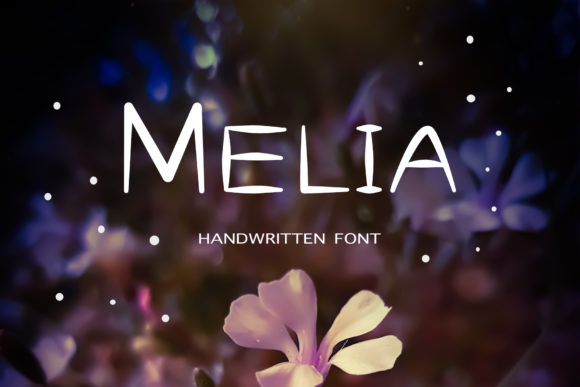
Introducing Melia Font, the epitome of elegance and sophistication in the world of script fonts. This exquisite font, brought to life by the creative minds at 18CC FONTs, is more than just a collection of letters; it's an artistic expression that captures the essence of handwritten beauty. Melia Font isn't just a font; it's an experience.
With its flowing curves, delicate strokes, and a touch of whimsy, Melia Font adds a captivating charm to any project it graces. Whether you're crafting invitations for a special occasion, designing posters for an event, or creating logos for your brand, Melia Font elevates your designs to new heights of sophistication.
With its versatility, Melia Font seamlessly adapts to a wide range of projects, from formal documents to playful invitations. It effortlessly complements both classic and contemporary styles, adding a touch of elegance to traditional projects and a dash of whimsy to modern designs.
Melia Font possesses an innate ability to capture the essence of handwritten messages, making it the perfect choice for personal projects. Its gentle curves and natural flow evoke a sense of intimacy and authenticity, adding a personal touch to your creations.